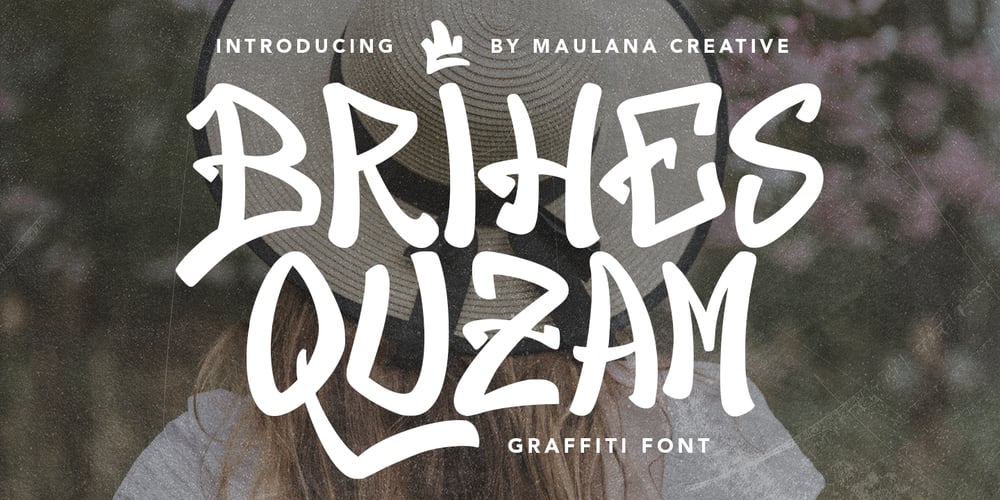
Brihes Quzam Font Family was designed by Gilang Maulana and published by Maulana Creative. Brihes Quzam contains 1 styles and family package options. Brihes Quzam graffiti display font. Bold stroke, fun character with a bit of ligatures and alternates. To give you an extra creative work. Brihes Quzam font support multilingual more than 100+ language. This font is good for logo design, Social media, Movie Titles, Books Titles, a short text even a long text letter and good for your secondary text font with script or serif. Make a stunning work with Brihes Quzam font.Cheers,Maulana Creative